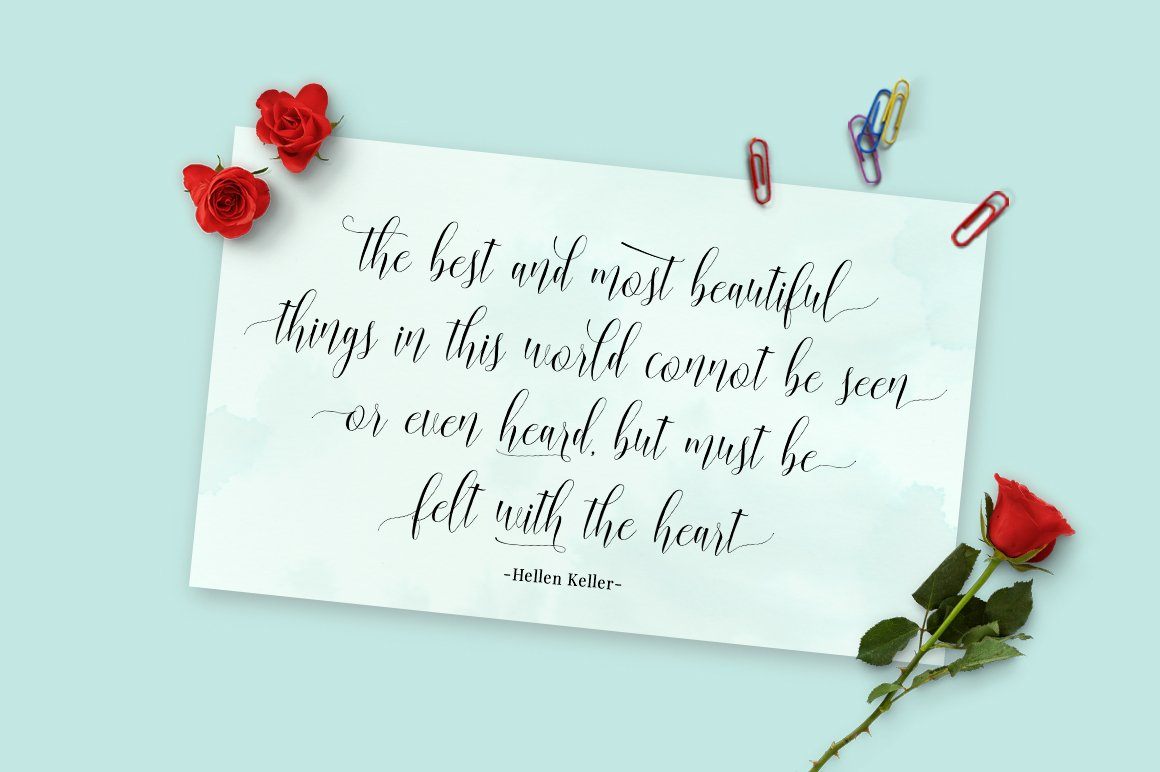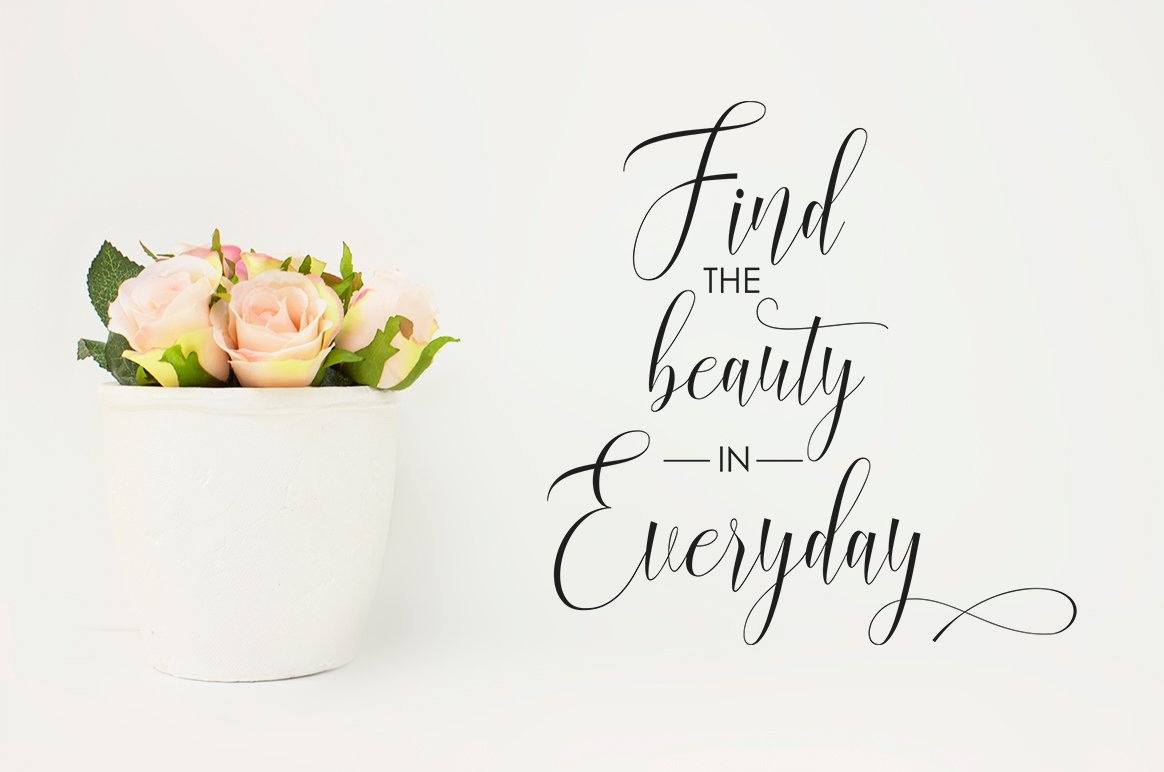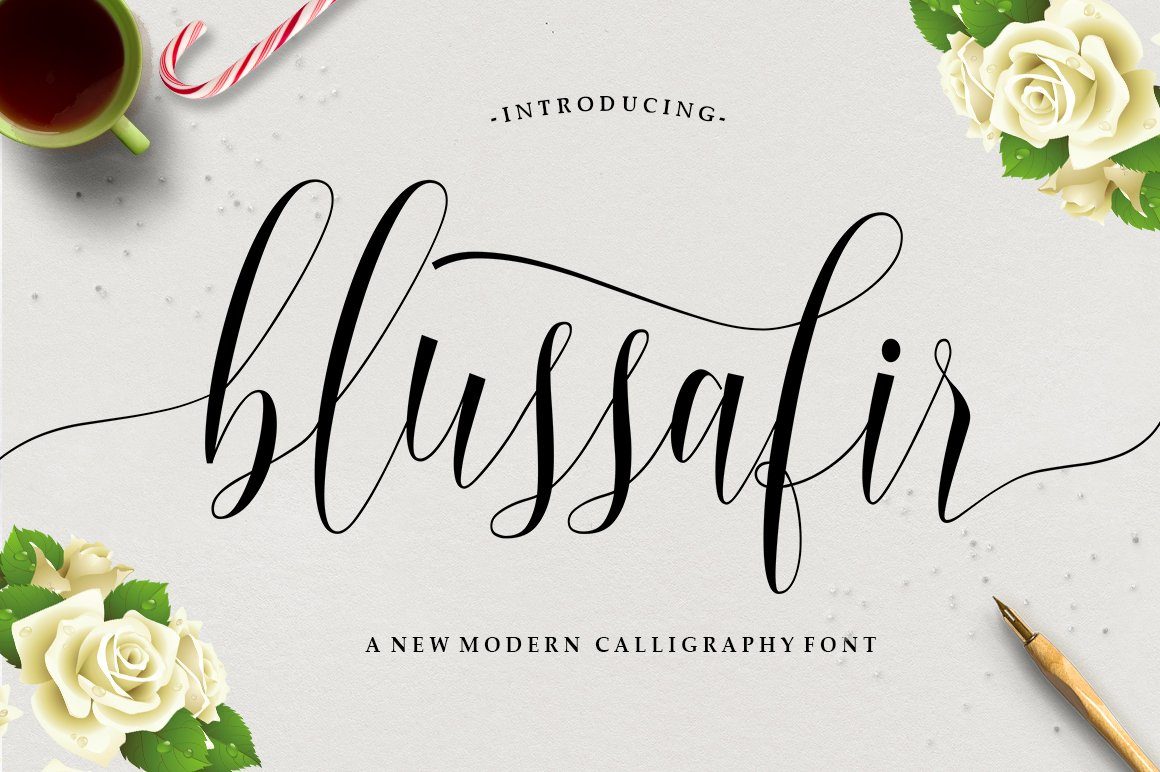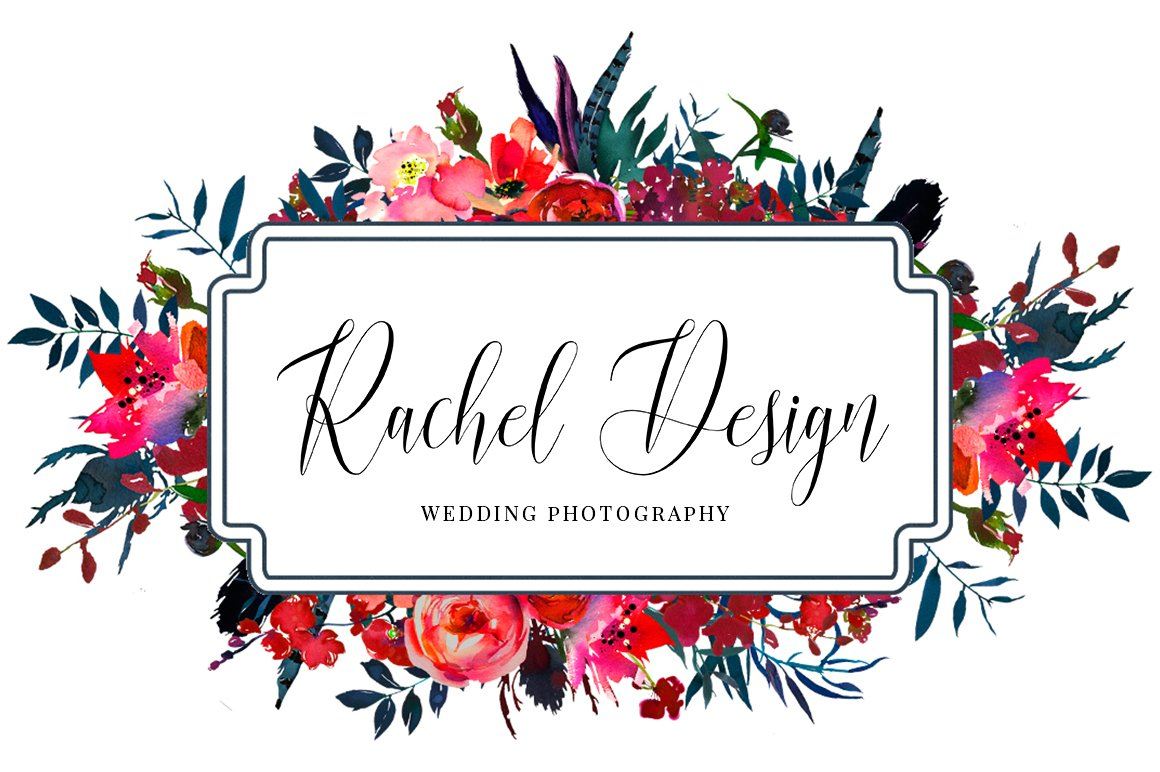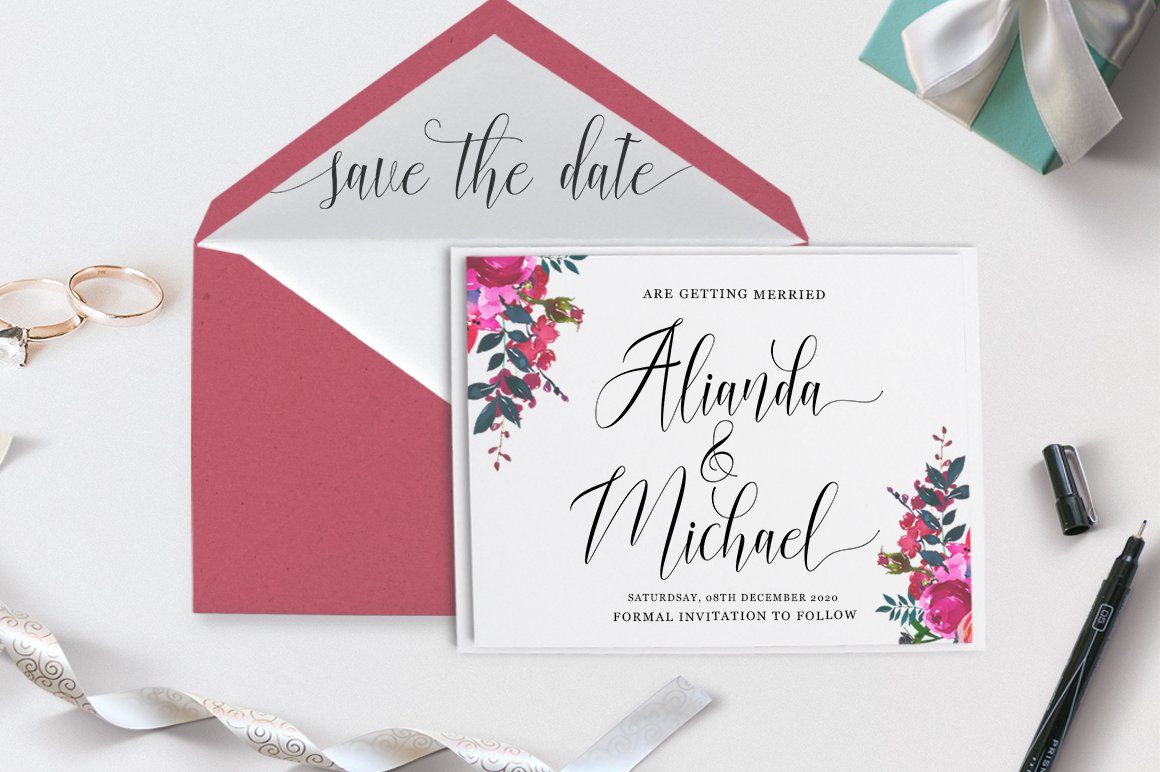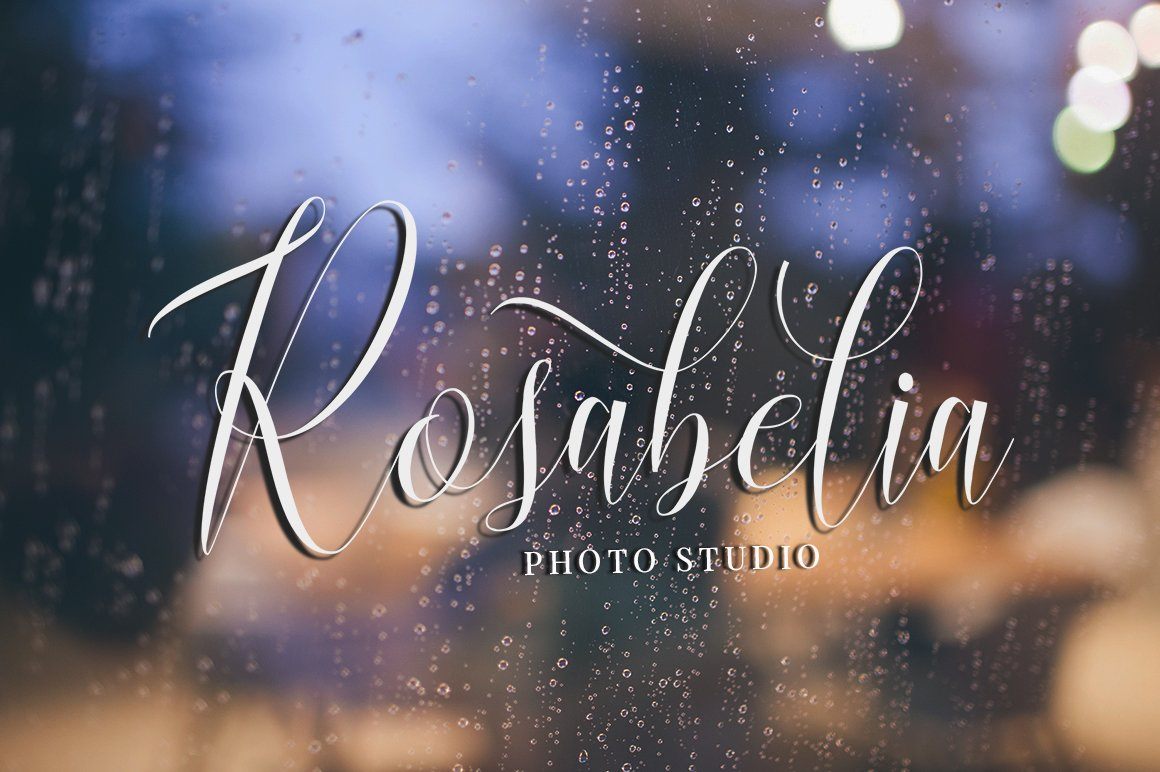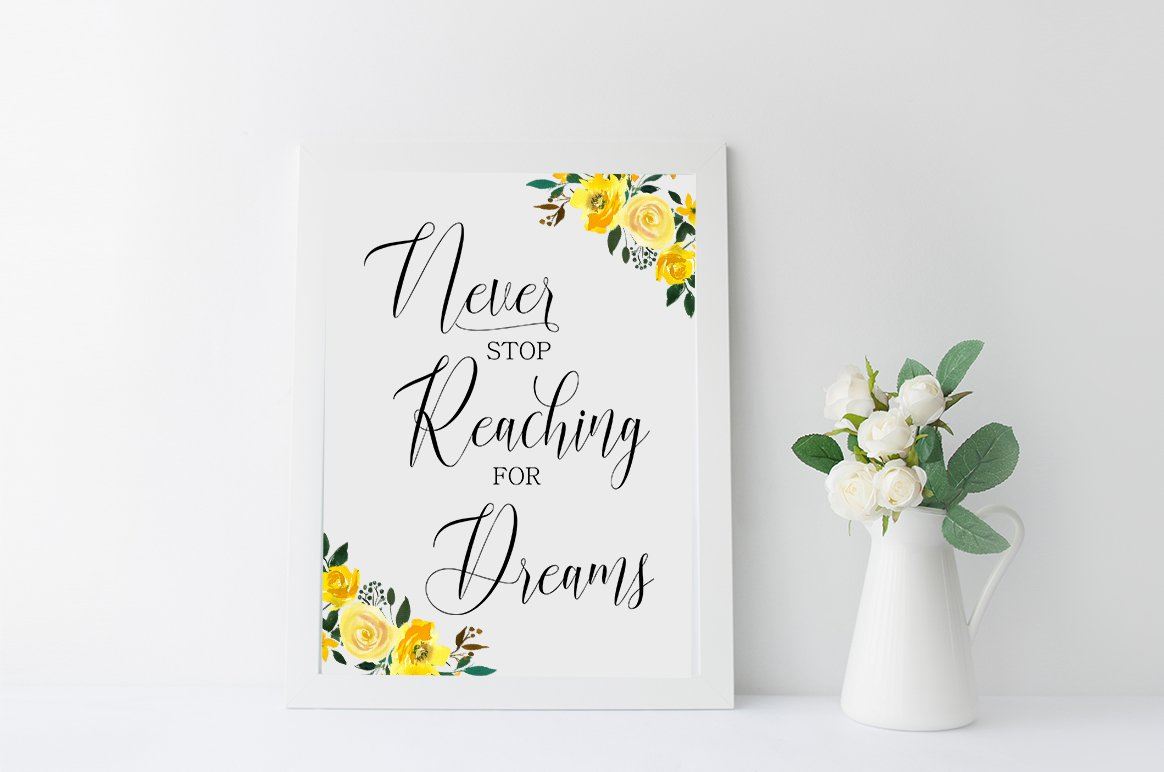
Blussafir Script
About Blussafir Script
Blussafir Script modern calligraphy design, including Regular. This font is casual and pretty with swashes. Can used for various purposes. such as logo, product packaging, wedding invitations, branding, headlines, signage, labels, signature, book covers, posters, quotes and more. Blussafir Script features OpenType stylistic alternates, ligatures and International support for most Western Languages is included. To enable the OpenType Stylistic alternates, you need a program that supports OpenType features such as Adobe Illustrator CS, Adobe Indesign & CorelDraw X6-X7, Microsoft Word 2010 or later versions. How to access all alternative characters using Adobe Illustrator: https://www.youtube.com/watch?v=XzwjMkbB-wQ Blussafir Script is coded with PUA Unicode, which allows full access to all the extra characters without having special designing software. Mac users can use Font Book , and Windows users can use Character Map to view and copy any of the extra characters to paste into your favourite text editor/app. How to access all alternative characters, using Windows Character Map with Photoshop: https://www.youtube.com/watch?v=Go9vacoYmBw If you need help or have any questions, please let me know. I’m happy to help 🙂 Thanks & Happy Designing!